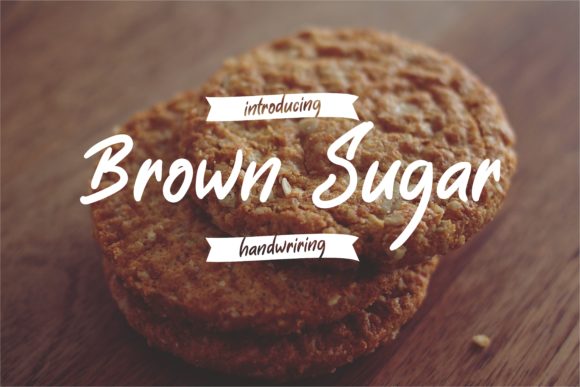
The Sweet Spot: Discovering the Brown Sugar Font
I’ll never forget the time I was working on a project for a client who wanted a modern, yet elegant look for their branding. I had spent hours scouring the internet for the perfect font, but nothing seemed quite right. That was until I stumbled upon the Brown Sugar font. Its unique handwritten style and great readability immediately caught my eye, and I knew I had found the one. In this article, I’ll share my experience with the Brown Sugar font, its features, and how to make the most of it in your designs.
A First Impression: What I Love About Brown Sugar
The Brown Sugar font has quickly become one of my go-to fonts for a variety of design projects. Here’s what I love about it:
- ✨ Unique handwritten style that adds a touch of elegance to any design
- ✅ Great readability, making it perfect for body text and quotes
- ✅ Versatile and suitable for a wide range of design projects, including logos, posters, magazine layouts, and more
- ✨ Modern look that will elevate your designs and make them stand out
The Not-So-Perfect: Small Quirks and Limitations
While the Brown Sugar font is amazing, it’s not without its quirks. Here are a few things to keep in mind:
- ⚠️ Limited use of OpenType features, which may limit its use in certain design projects
- 🤔 Some users have reported issues with kerning, which can affect the overall look of the text
The Story Behind Brown Sugar
The Brown Sugar font was designed by a team of typographers who wanted to create a unique, elegant script font that would add a touch of sophistication to any design. Inspired by traditional calligraphy, the Brown Sugar font features beautiful, flowing lines and a modern aesthetic that’s perfect for a wide range of design projects.
- Q: What type of designs is the Brown Sugar font suitable for?
- A: The Brown Sugar font is suitable for a wide range of design projects, including logos, posters, magazine layouts, and more.